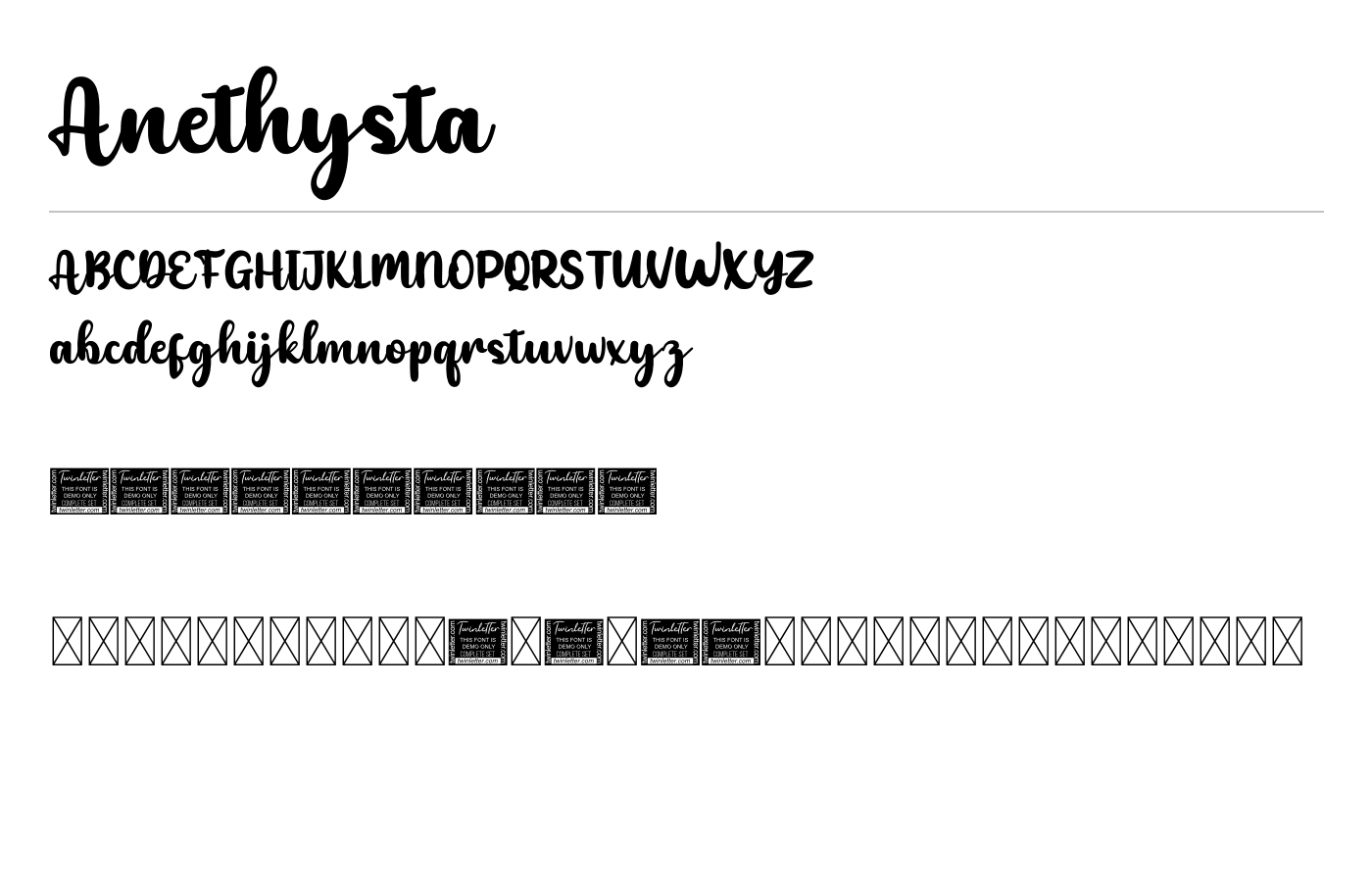
Anethysta is a lively and charming script font with smooth, rounded strokes that give it a friendly and approachable feel. Its moderate weight and balanced letterforms make it ideal for invitations, branding, and playful headlines where a personal, upbeat touch is desired. This font works well for creative projects that aim to convey warmth and cheerfulness without sacrificing readability.
Anethysta Font
About Anethysta Font